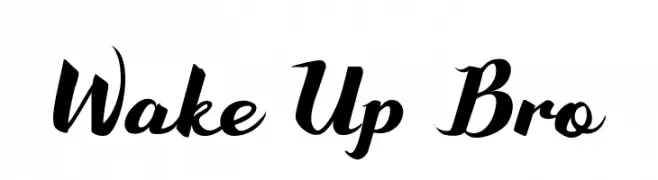
( Fonts by Violet MX )
A bold, expressive script font with high contrast and elegant flourishes.
( Fonts by Billy Argel )
A bold, cursive script font with elegant, flowing curves.
( Fonts by Abo Daniel Studio )
A flowing, cursive script font with elegant, interconnected strokes.
A lively, flowing script font with interconnected letterforms and a friendly appearance.
( Fonts by Beautypes )
A whimsical and elegant handwritten script font with playful loops and curves.
A charming and fluid script font with elegant, connected characters.
A bold, rough script font with a hand-drawn, brush-like texture.